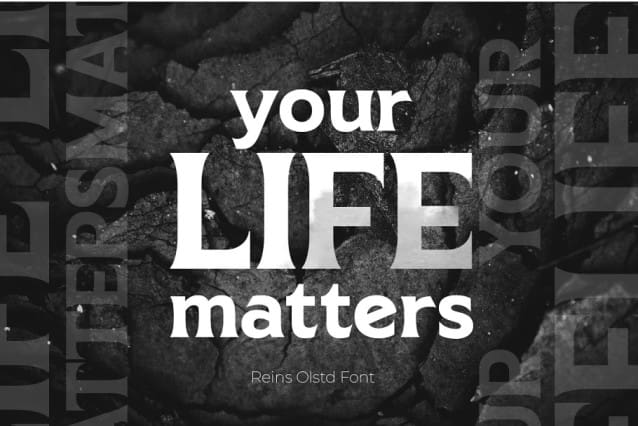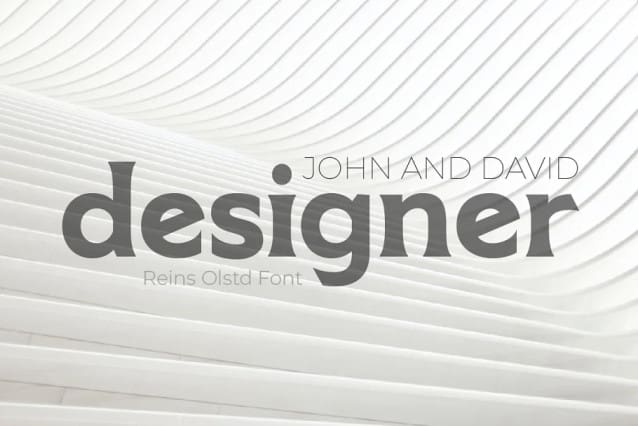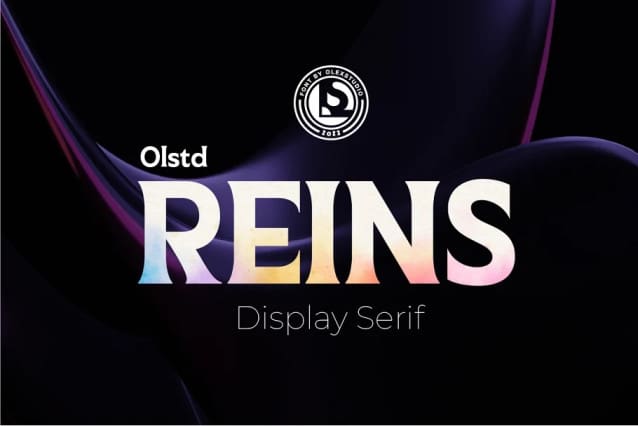
Reins Olstd Font
Reins Olstd Font – Display Serif Font will look gorgeous on all your designs, invitation, poster design, book design, branding materials, logo’s, and all project design other.